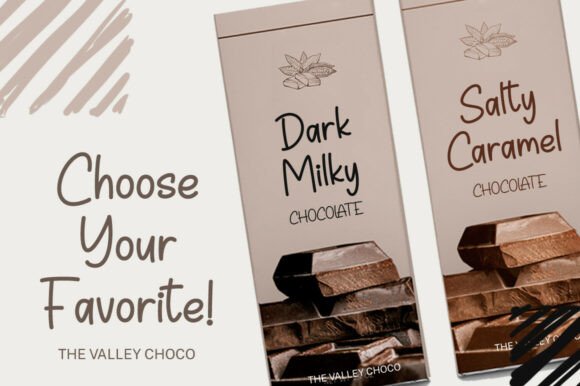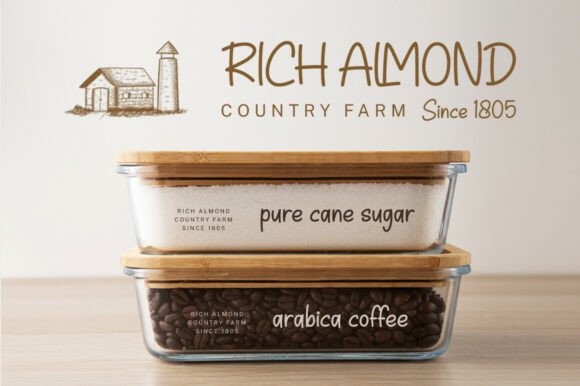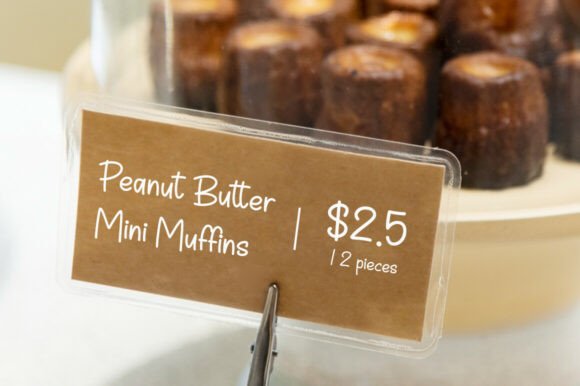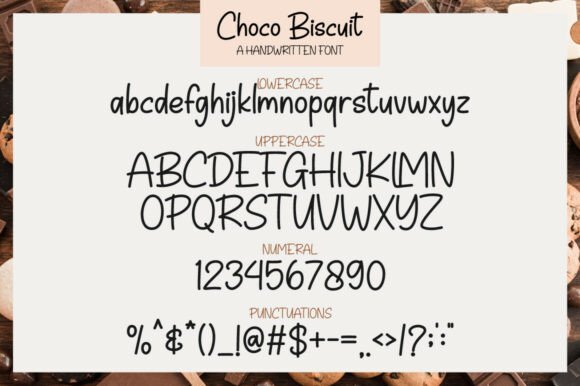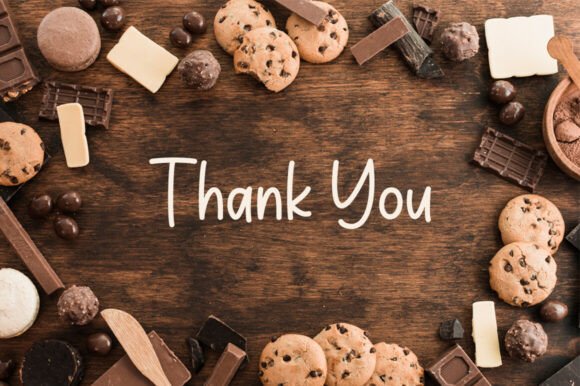
Introducing Choco Biscuit: The Sweetest Handwritten Font for Your Designs
Are you looking for a font that can add a touch of warmth and personality to your designs? Look no further than Choco Biscuit, a playful handwritten font that’s perfect for creating inviting and fun designs. With its smooth strokes and rounded edges, Choco Biscuit brings a friendly, casual feel that’s ideal for a wide range of projects, from packaging and logos to social media posts and greeting cards.
The Charm of Handwritten Typography
Choco Biscuit is more than just a font – it’s a way to bring the charm of natural handwriting to your designs. Its unique character and personality make it perfect for designers and crafters who want to add a personal touch to their work. Whether you’re working on a food-related design, a lifestyle project, or a creative craft, Choco Biscuit is the perfect choice for adding a deliciously handmade touch.
One of the best things about Choco Biscuit is its versatility. This font is perfect for a wide range of projects, including:
- Packaging: Add a personal touch to your product packaging with Choco Biscuit’s warm and inviting style.
- Logos: Create a unique and memorable logo for your brand with Choco Biscuit’s playful and charming character.
- Product labels: Make your product labels stand out with Choco Biscuit’s smooth strokes and rounded edges.
- Posters: Create eye-catching posters that grab attention with Choco Biscuit’s fun and playful style.
- Social media posts: Add a personal touch to your social media posts with Choco Biscuit’s friendly and casual feel.
- Invitations: Create beautiful and inviting invitations with Choco Biscuit’s elegant and sophisticated style.
- Greeting cards: Add a personal touch to your greeting cards with Choco Biscuit’s warm and charming character.
- Branding projects: Use Choco Biscuit to create a consistent brand image that’s warm, inviting, and fun.
PUA-Encoded for Easy Customization
Choco Biscuit font is also PUA-encoded, which means you can access all glyphs, swashes, and alternate characters with ease. This makes it easy to customize your creations and add a unique touch to your designs. With Choco Biscuit, you can:
- Access a wide range of glyphs and alternate characters to add variety to your designs.
- Use swashes to add a touch of elegance and sophistication to your designs.
- Customize your font to fit your brand’s unique style and personality.
Why Choose Choco Biscuit?
So why choose Choco Biscuit for your designs? Here are just a few reasons:
- Unique and playful character: Choco Biscuit has a unique and playful character that’s perfect for adding a personal touch to your designs.
- Versatility: Choco Biscuit is perfect for a wide range of projects, from packaging and logos to social media posts and greeting cards.
- Easy customization: With PUA-encoding, you can easily access all glyphs, swashes, and alternate characters to customize your font.
- Warm and inviting style: Choco Biscuit has a warm and inviting style that’s perfect for creating designs that are friendly and approachable.